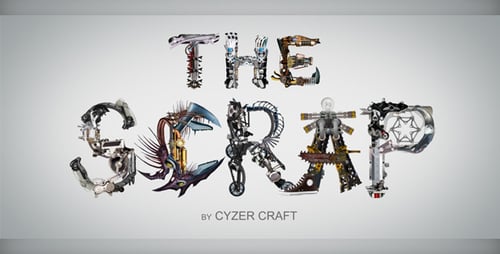
Mechanical Alphabet - Animated Typeface
This is animated A to Z alphabet with realistic mechanical springs and gears transform motion. Many pictures were taken and handcrafted to make the animation look cool, energetic and dynamic.
Every letter is unique with it's own personal character so you can make animated logo out of it. Metallic, wooden, plastic, robotic, electronic or mixed. Perfect for racing, sports, gaming, futuristic or oldschool tv show intro or promo.